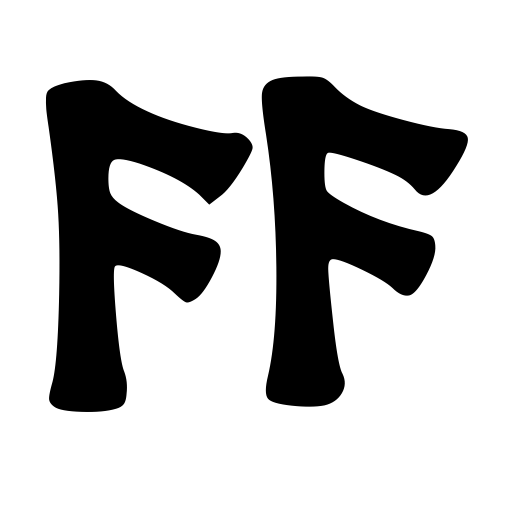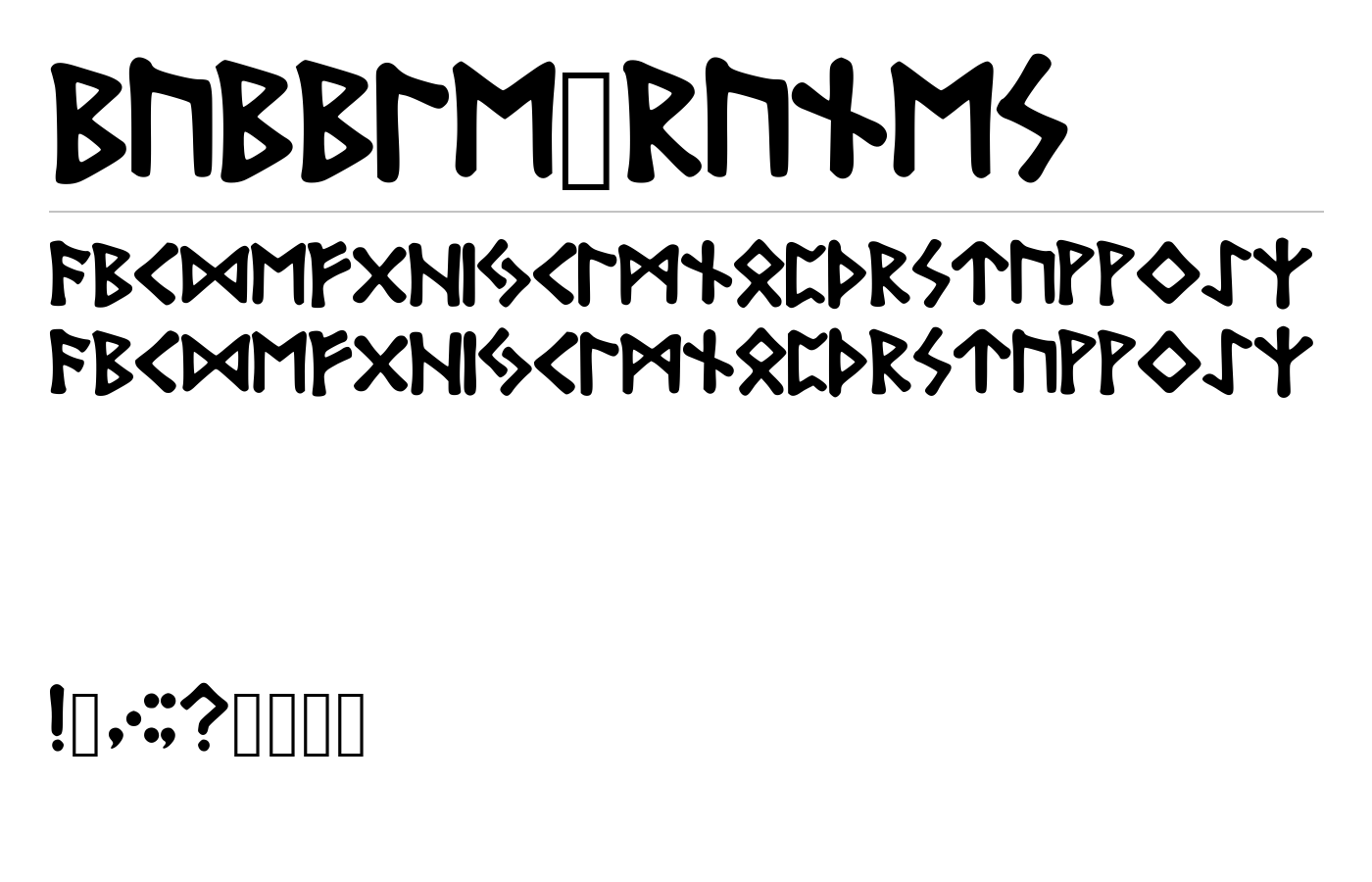
Bubble_Runes is a bold, playful display font with thick, rounded strokes that mimic ancient runic symbols. Its unique, geometric letterforms convey a sense of mysticism and tribal charm, making it perfect for eye-catching logos, themed posters, or creative projects that want to evoke an adventurous or fantasy vibe. This distinctive font works best in large sizes where its quirky character shapes can shine and capture attention.
Bubble_Runes Font
About Bubble_Runes Font